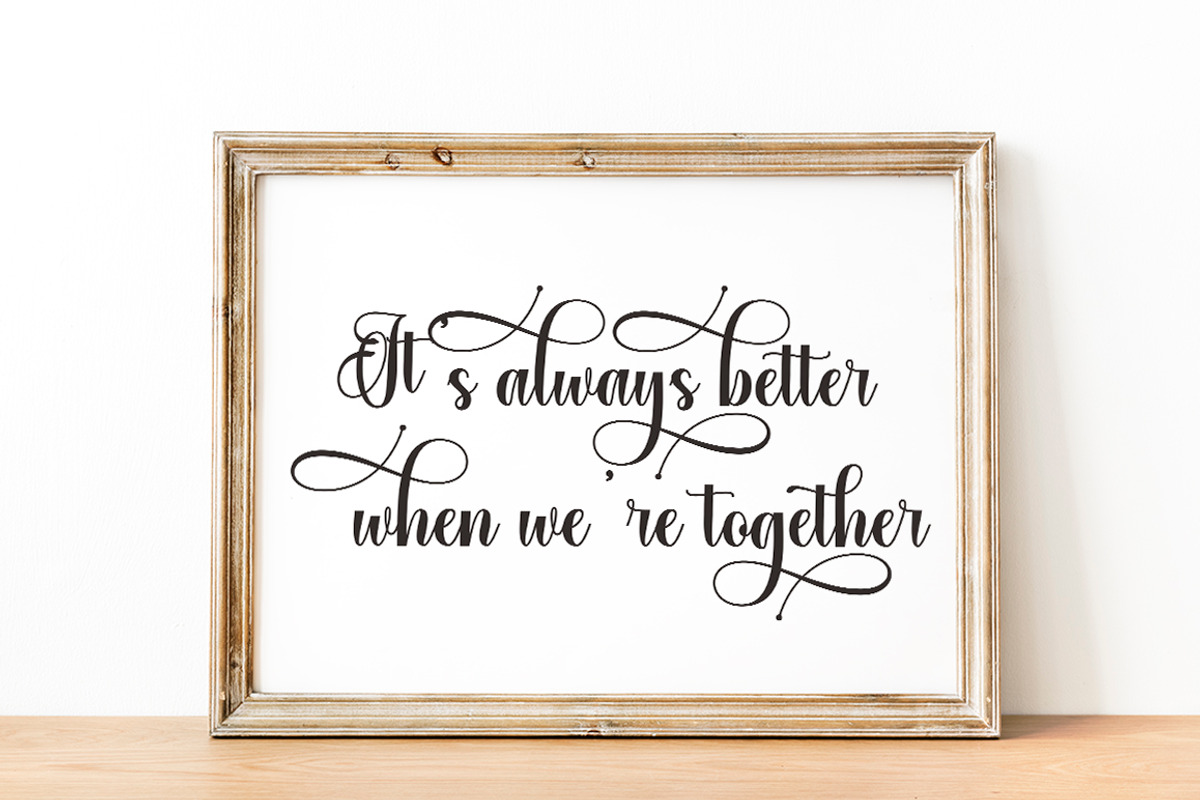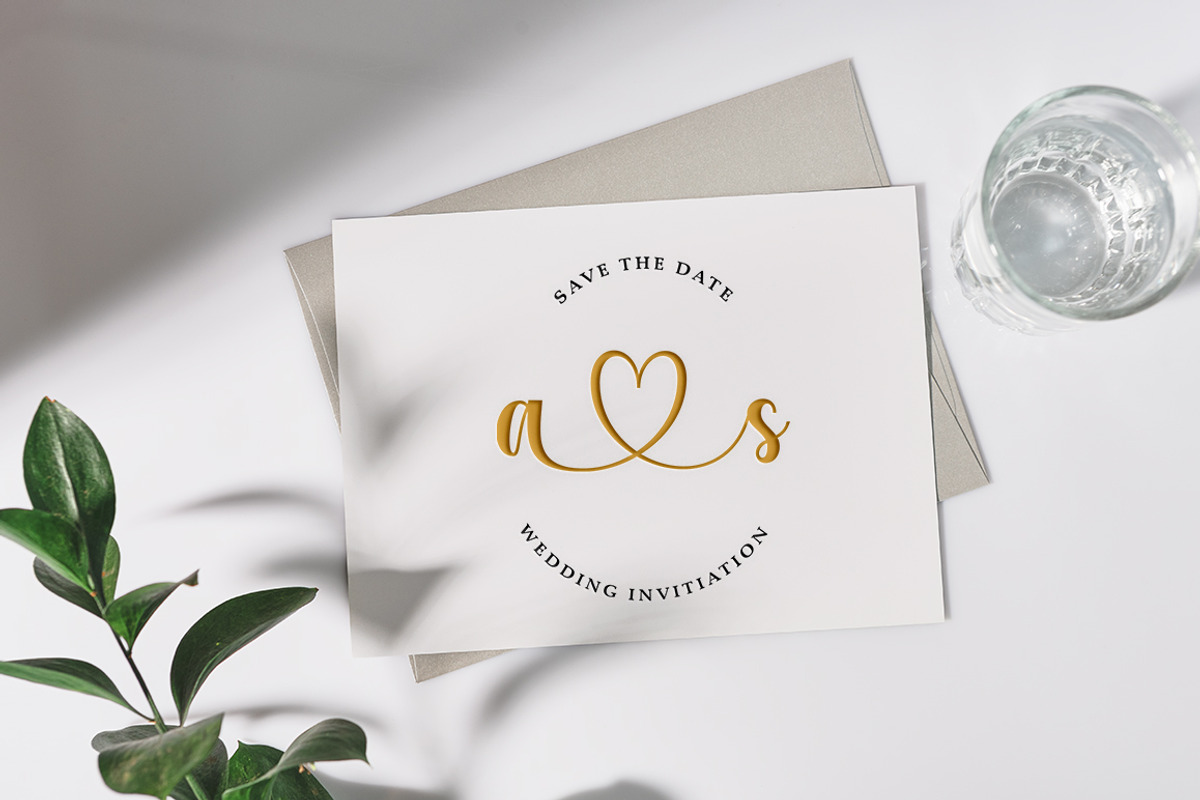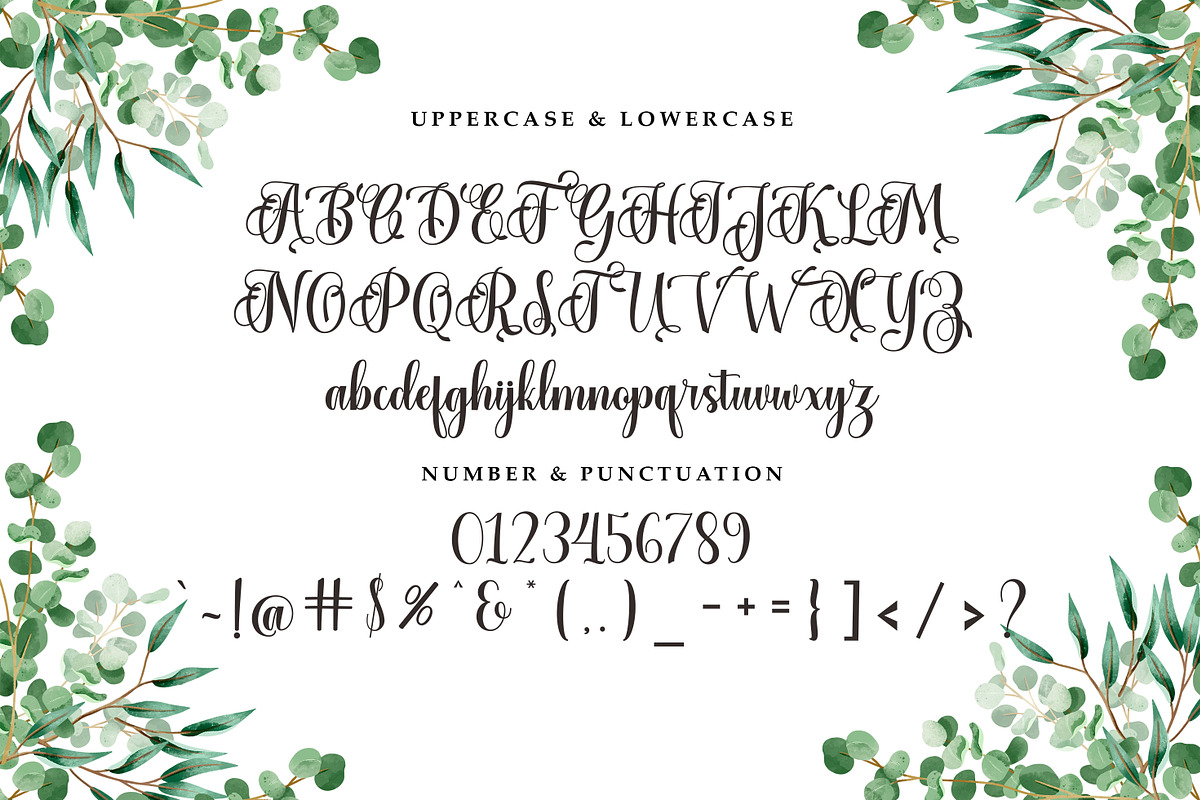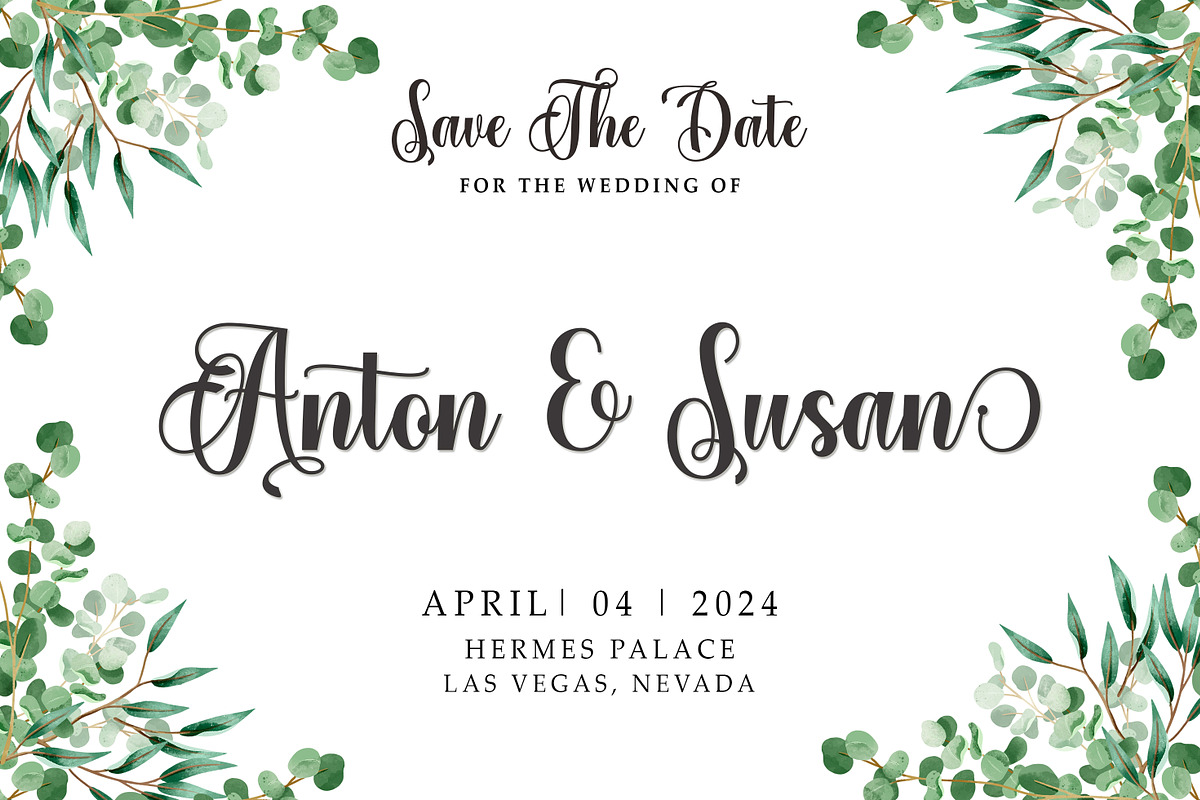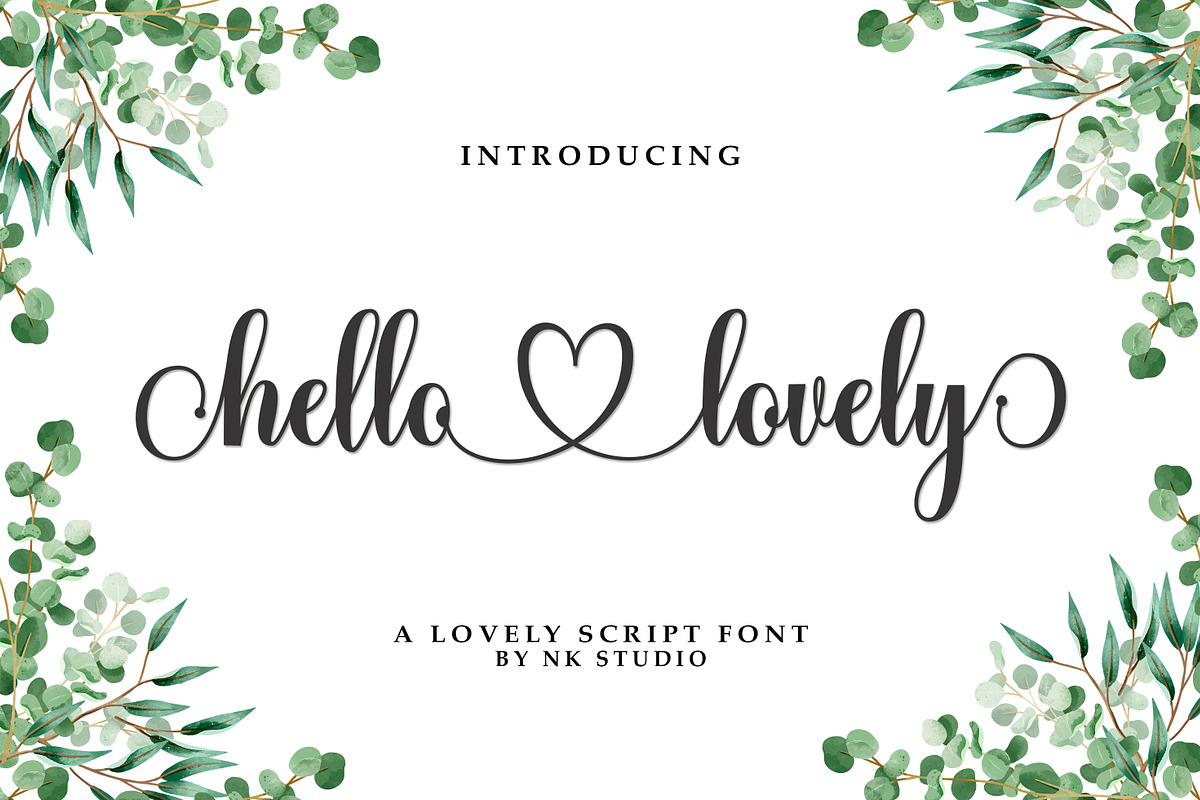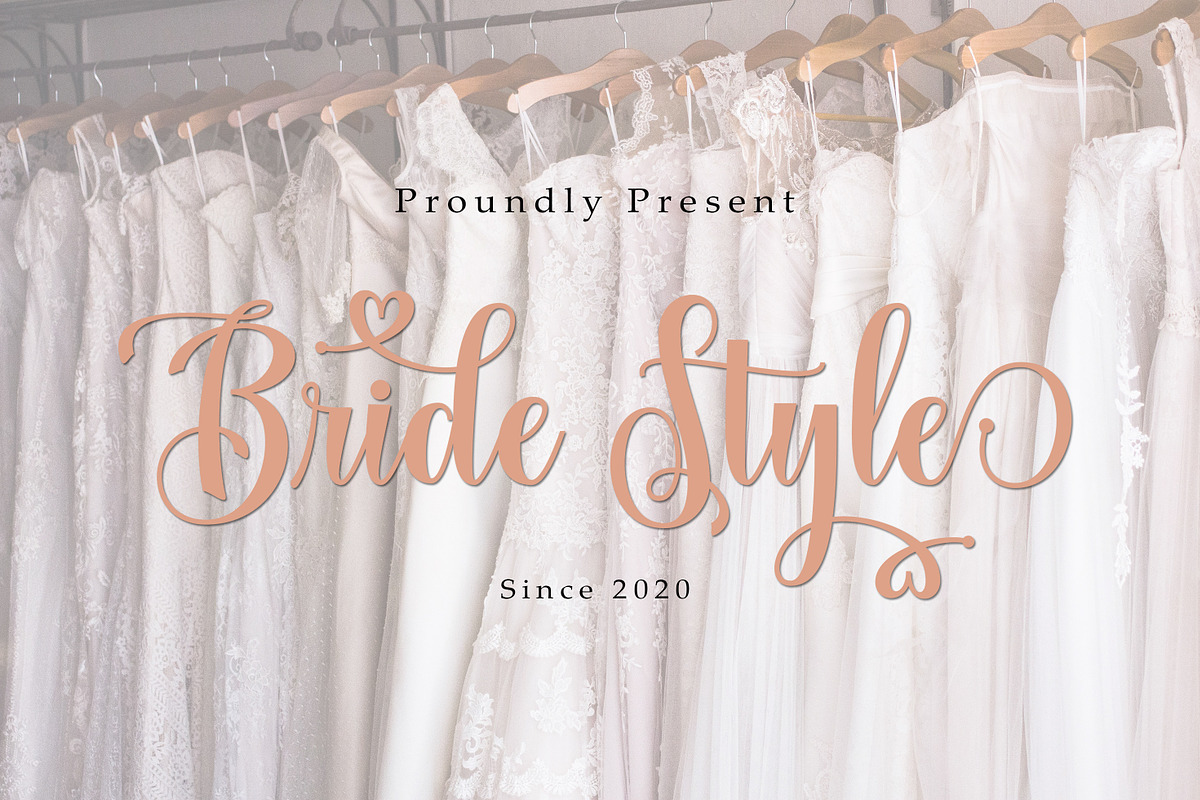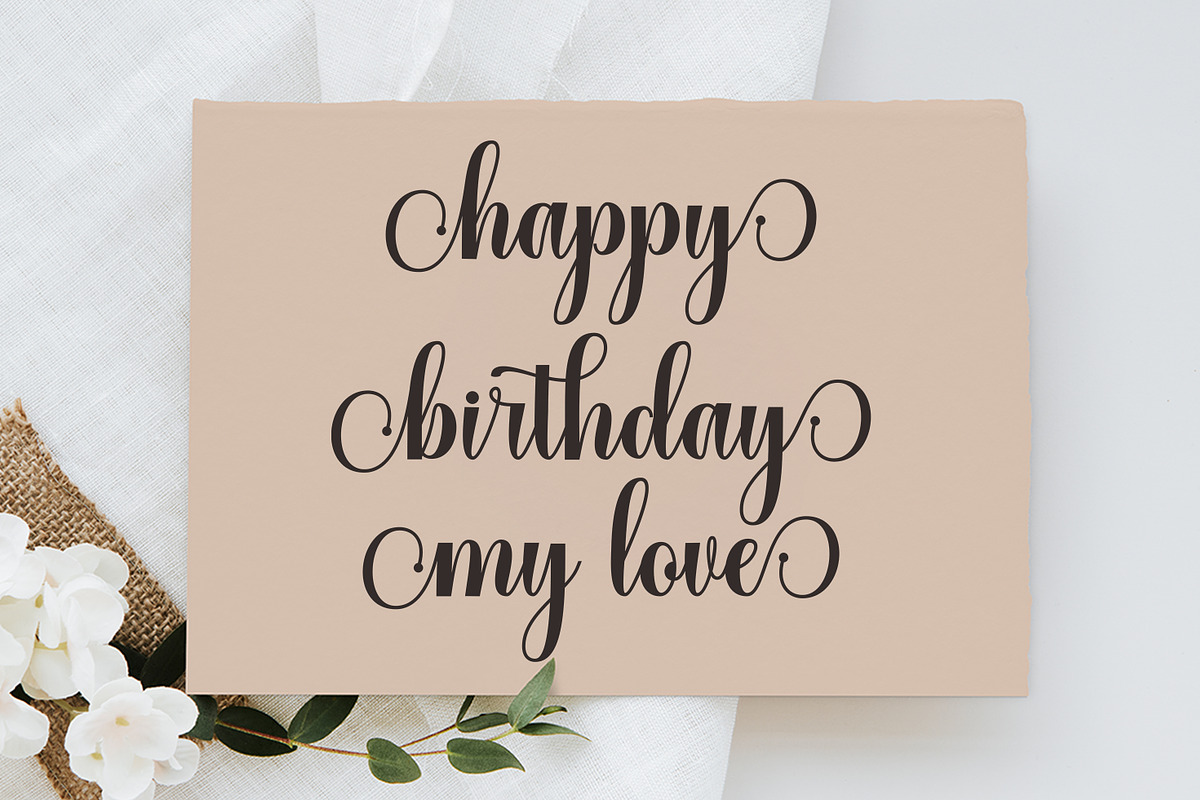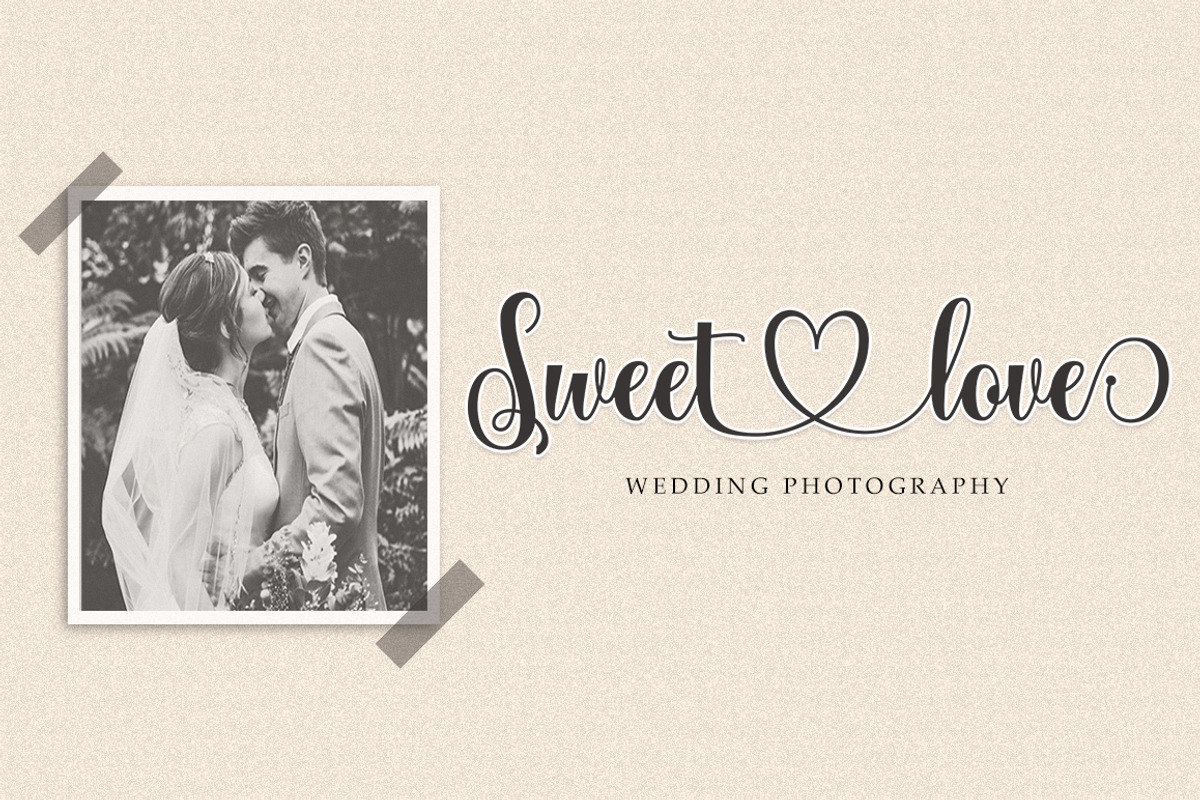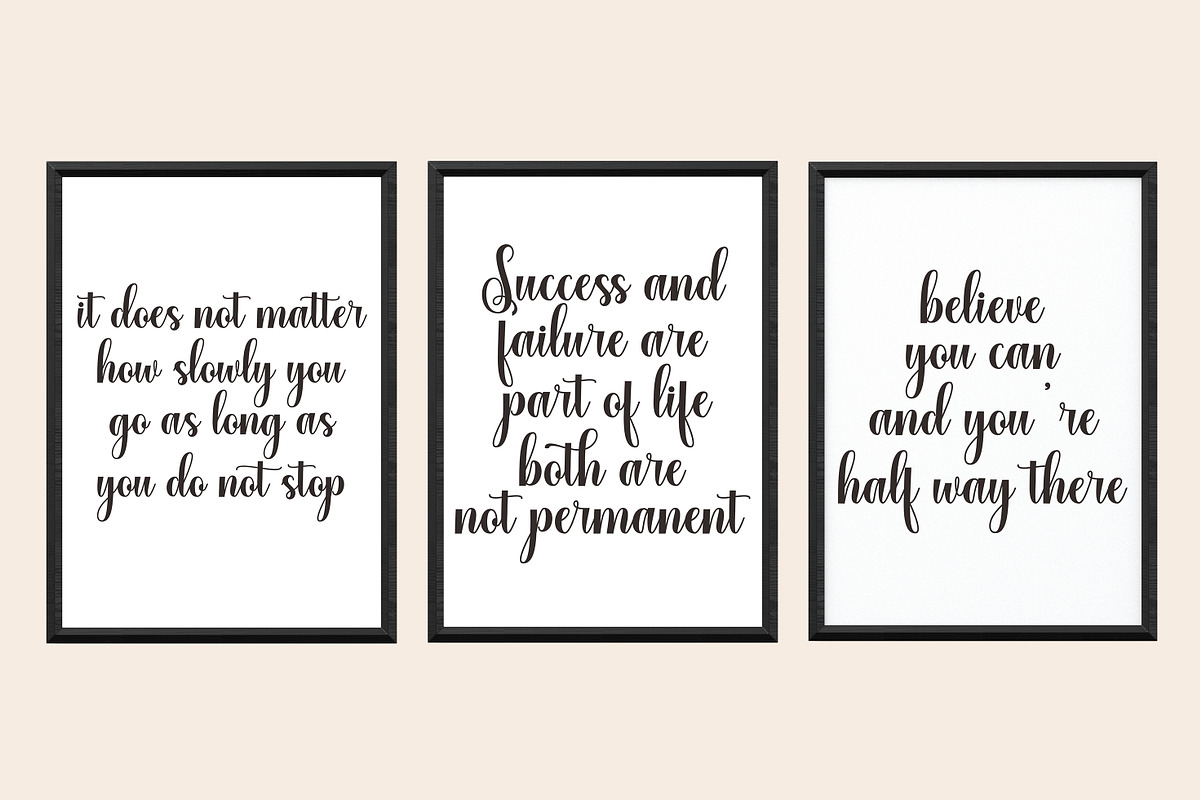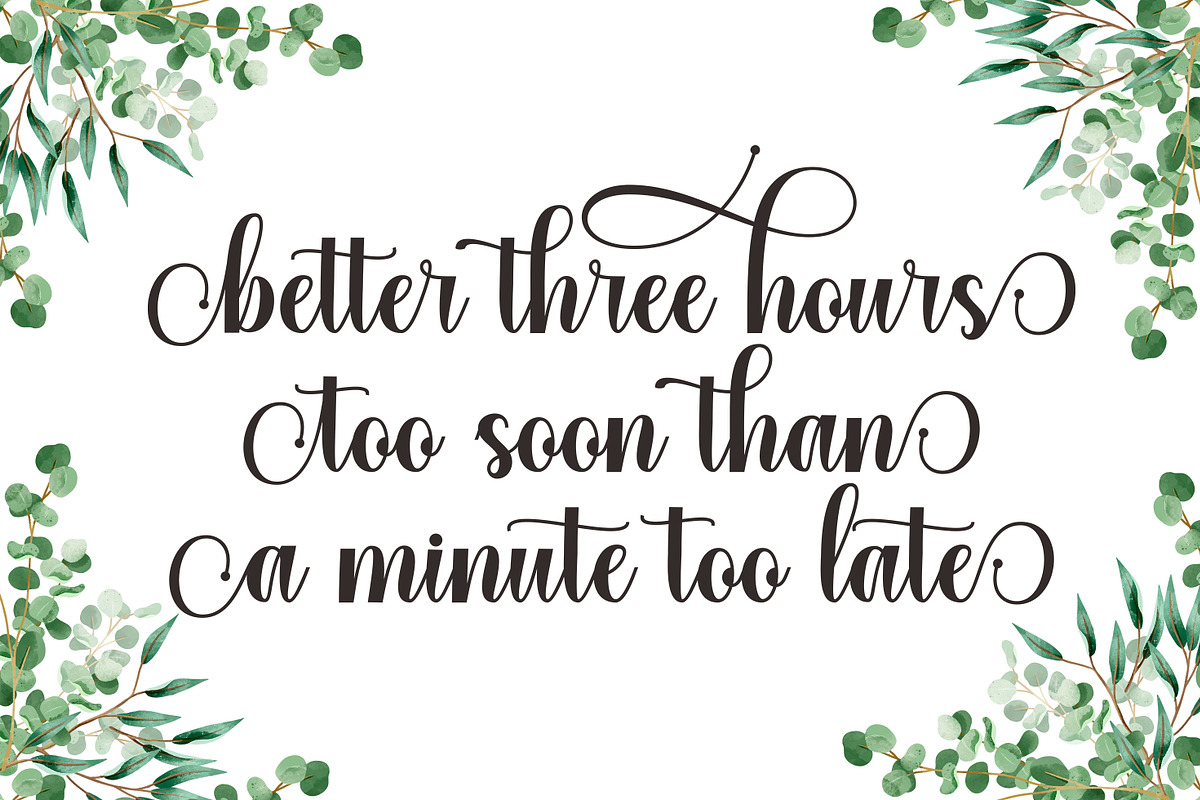
Hello Lovely
Hello Lovely with beautiful handwriting style.Hello Lovely is perfect for branding projects, home appliance design, product packaging, use in business cards, invitation cards, etc. Just like a stylish text overlay to a background image or anything else that needs a touch of elegance.